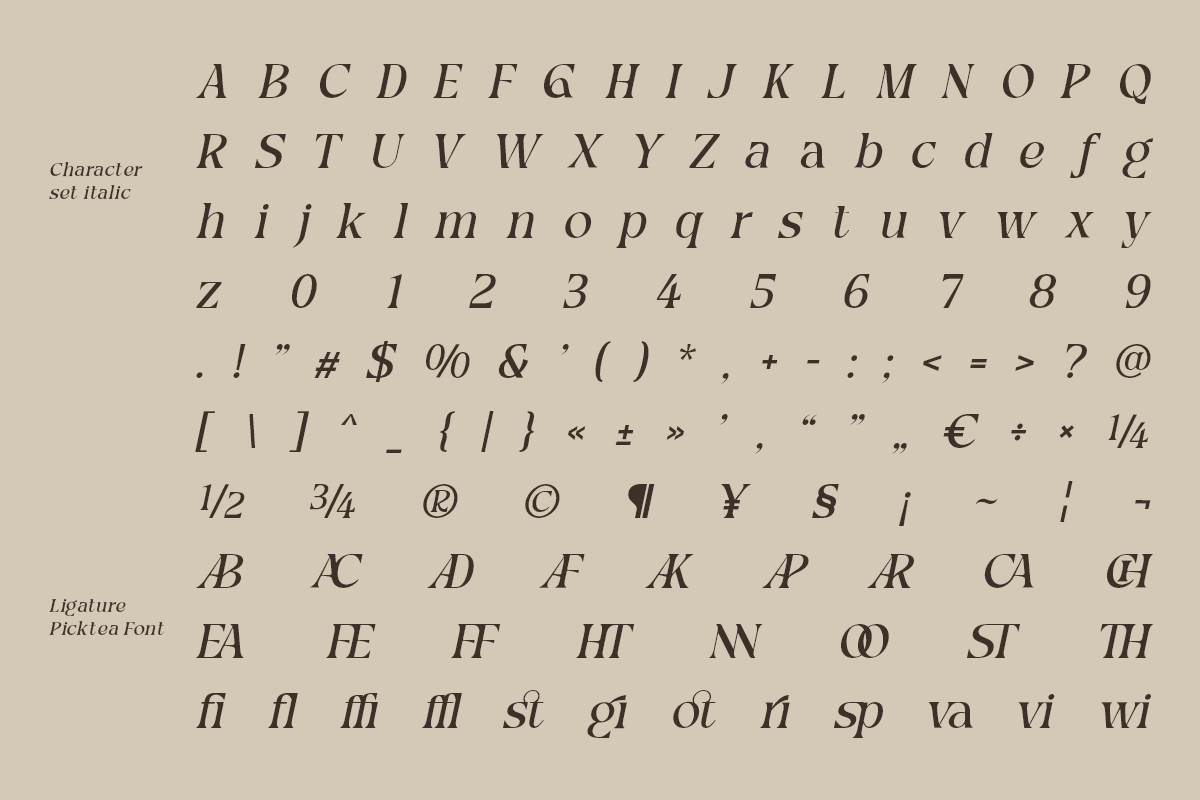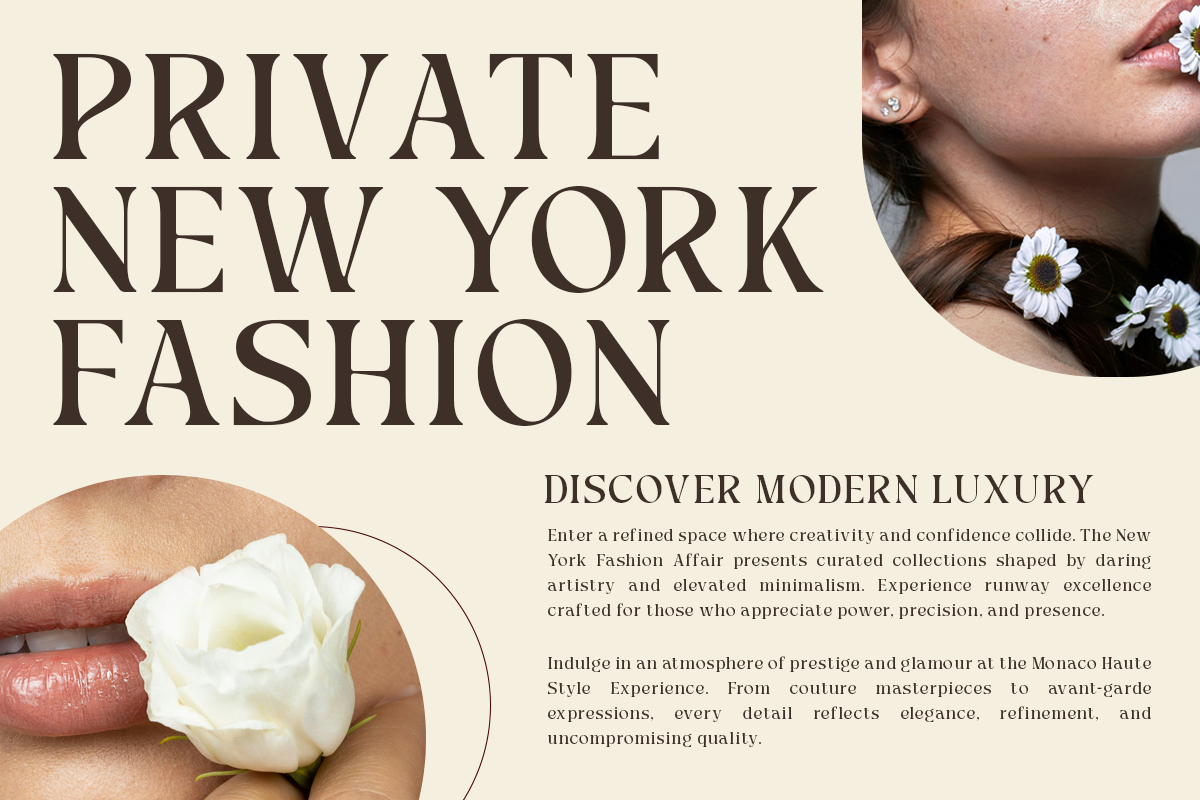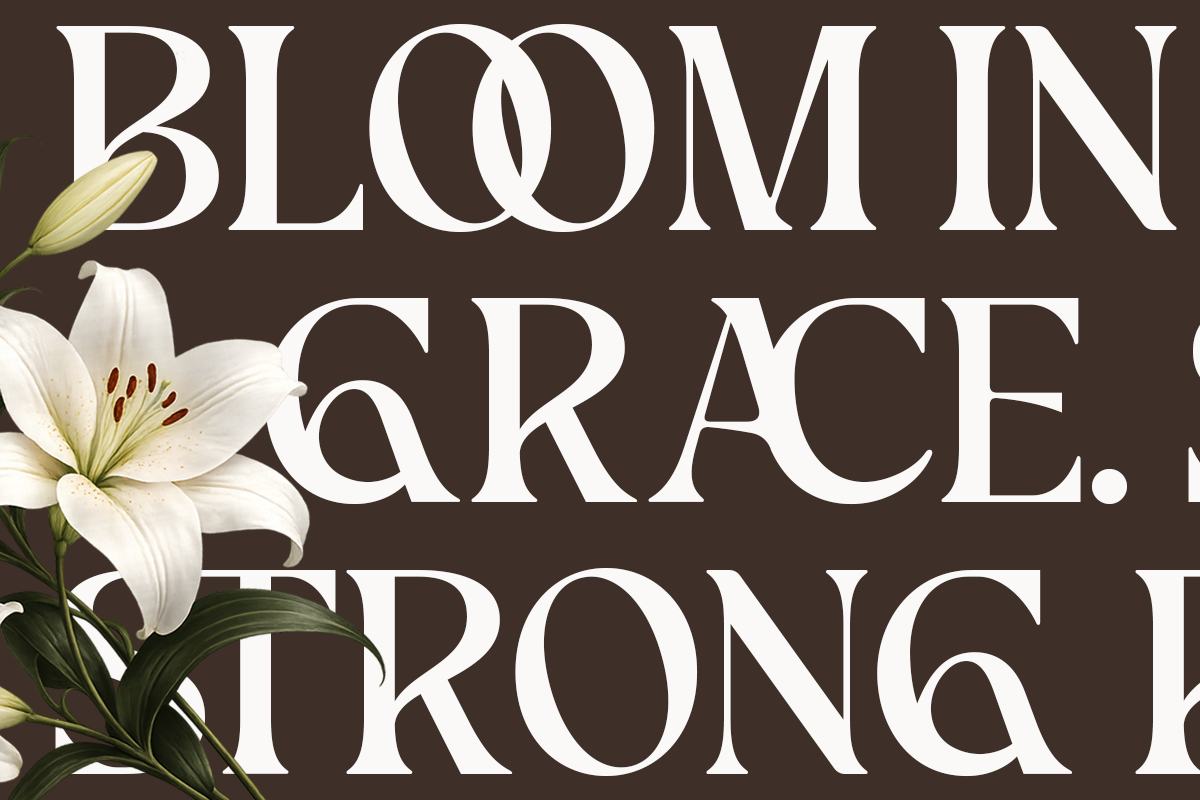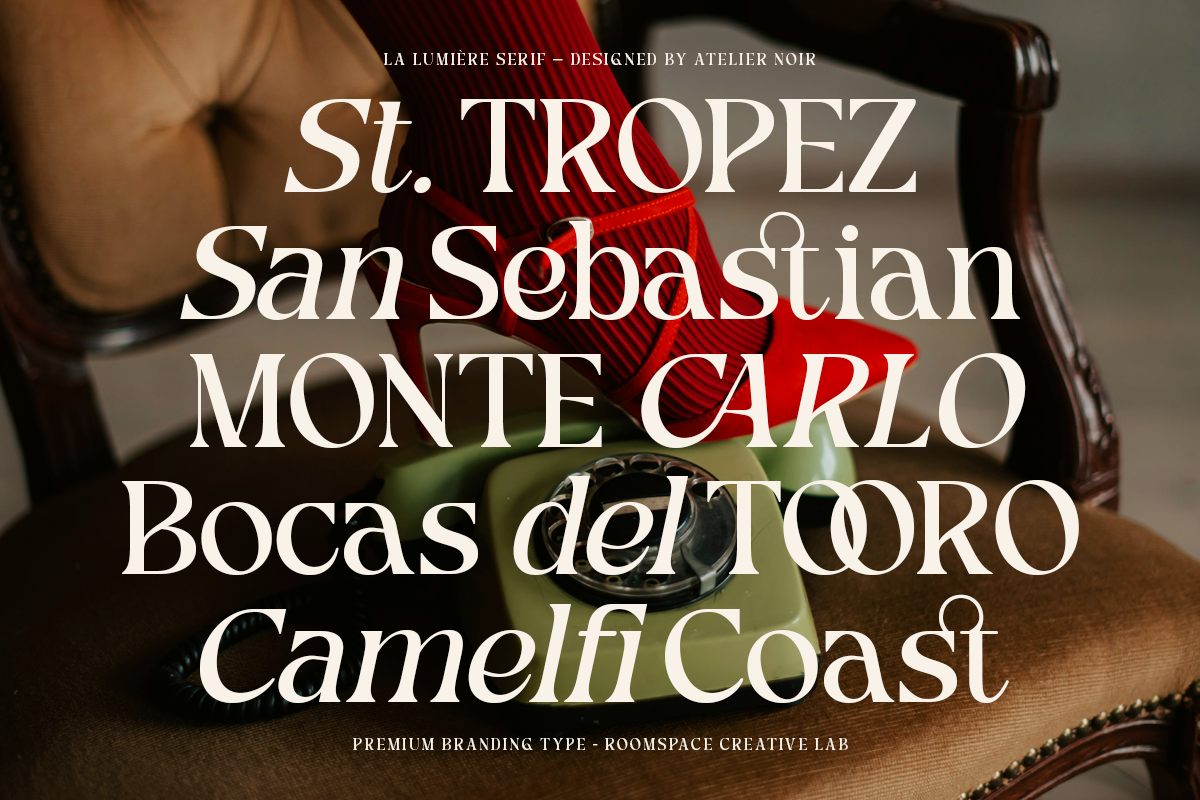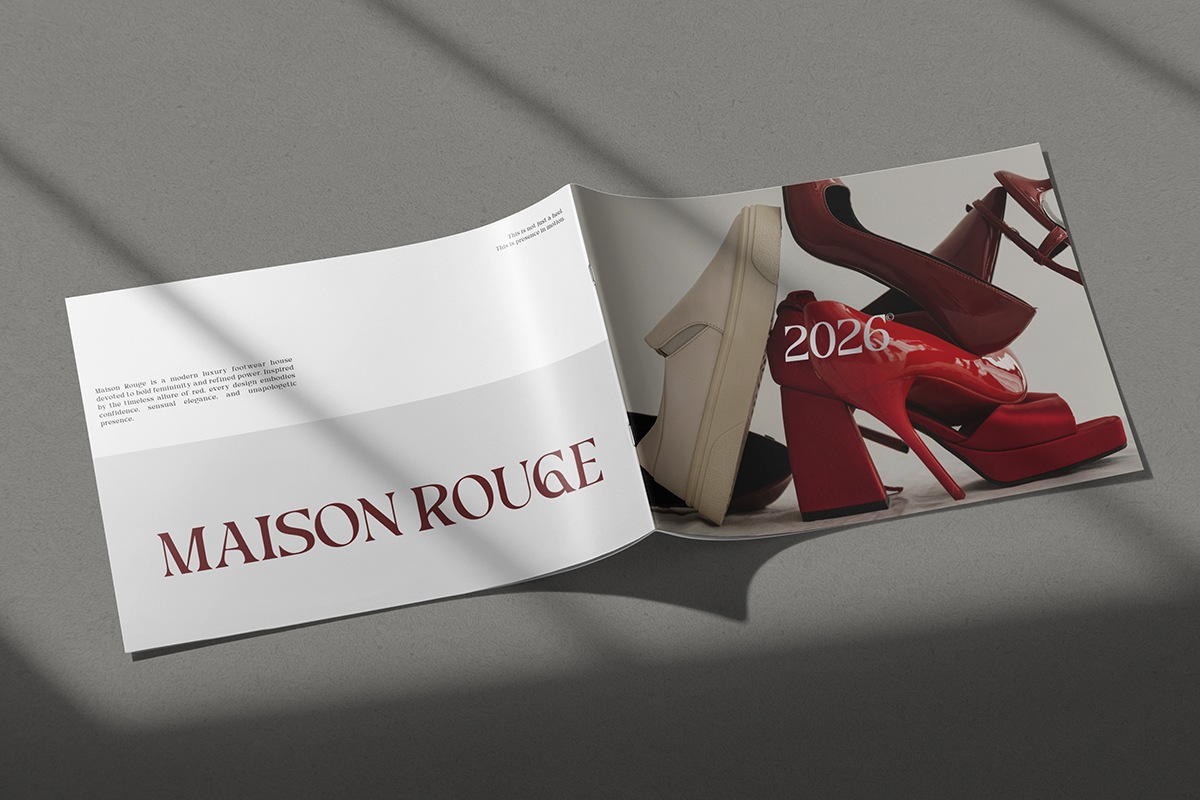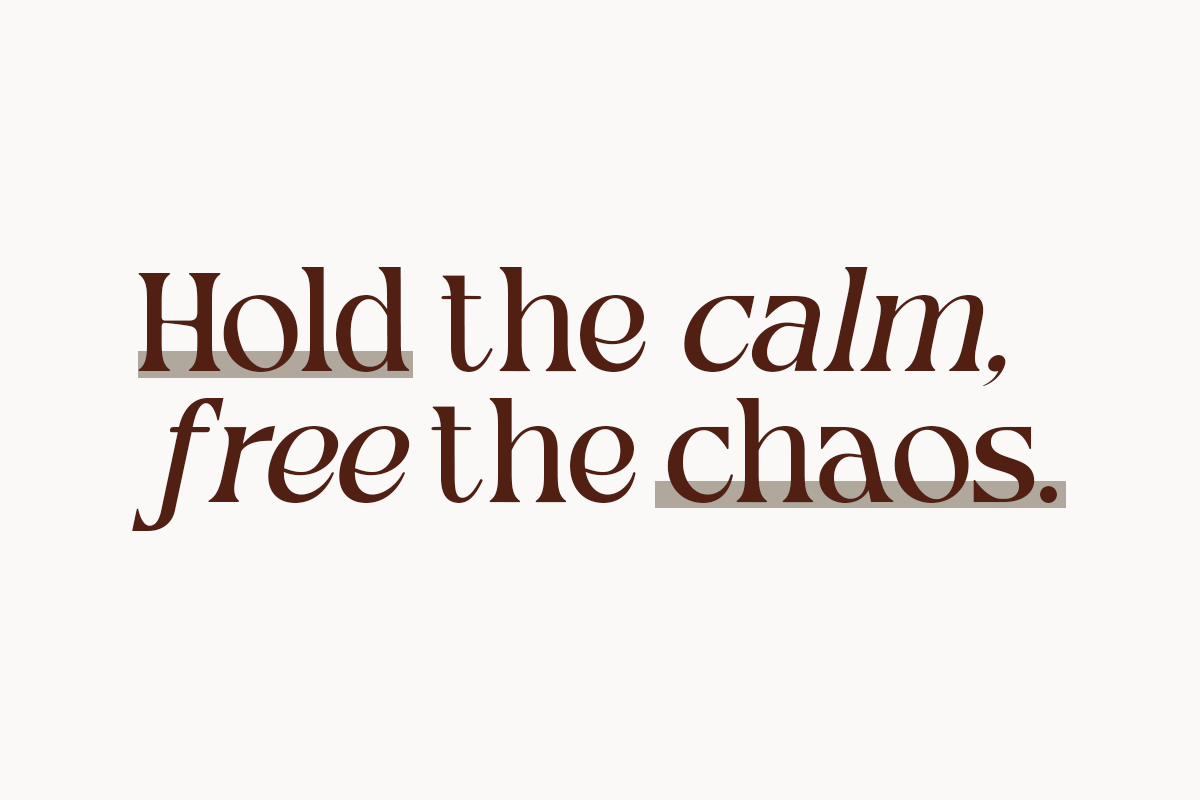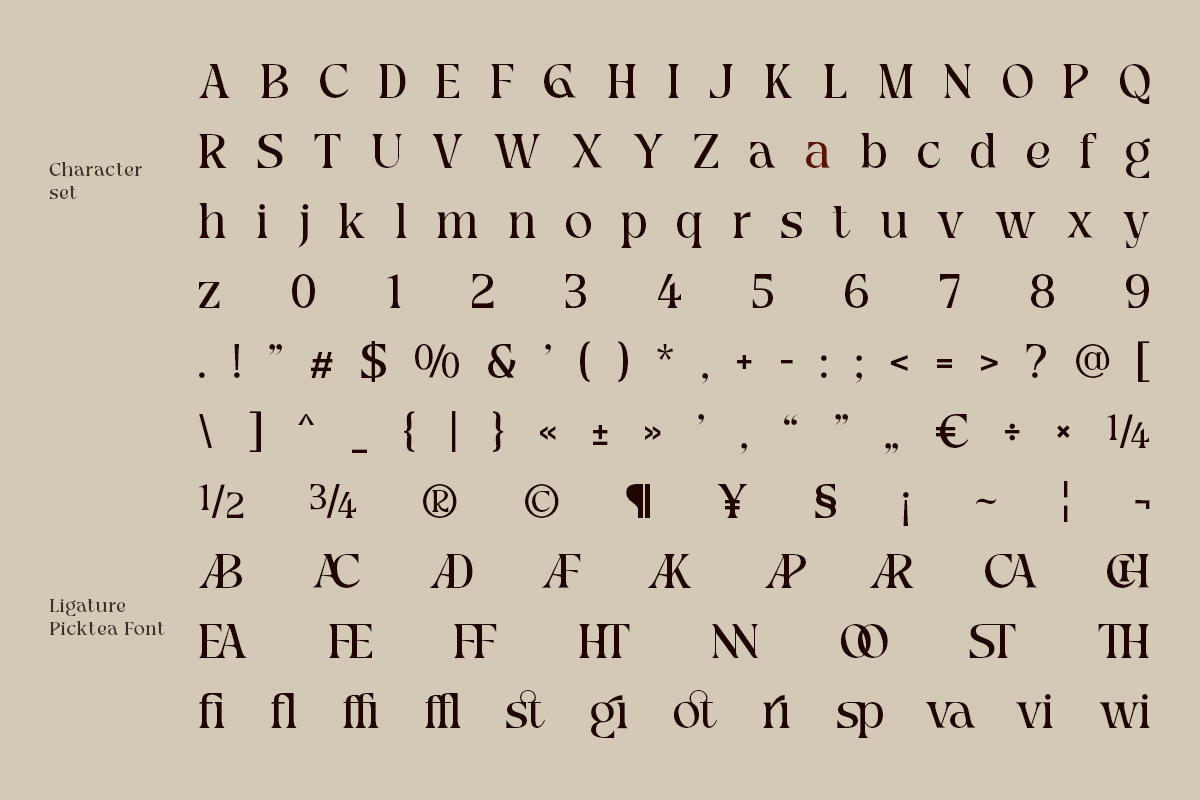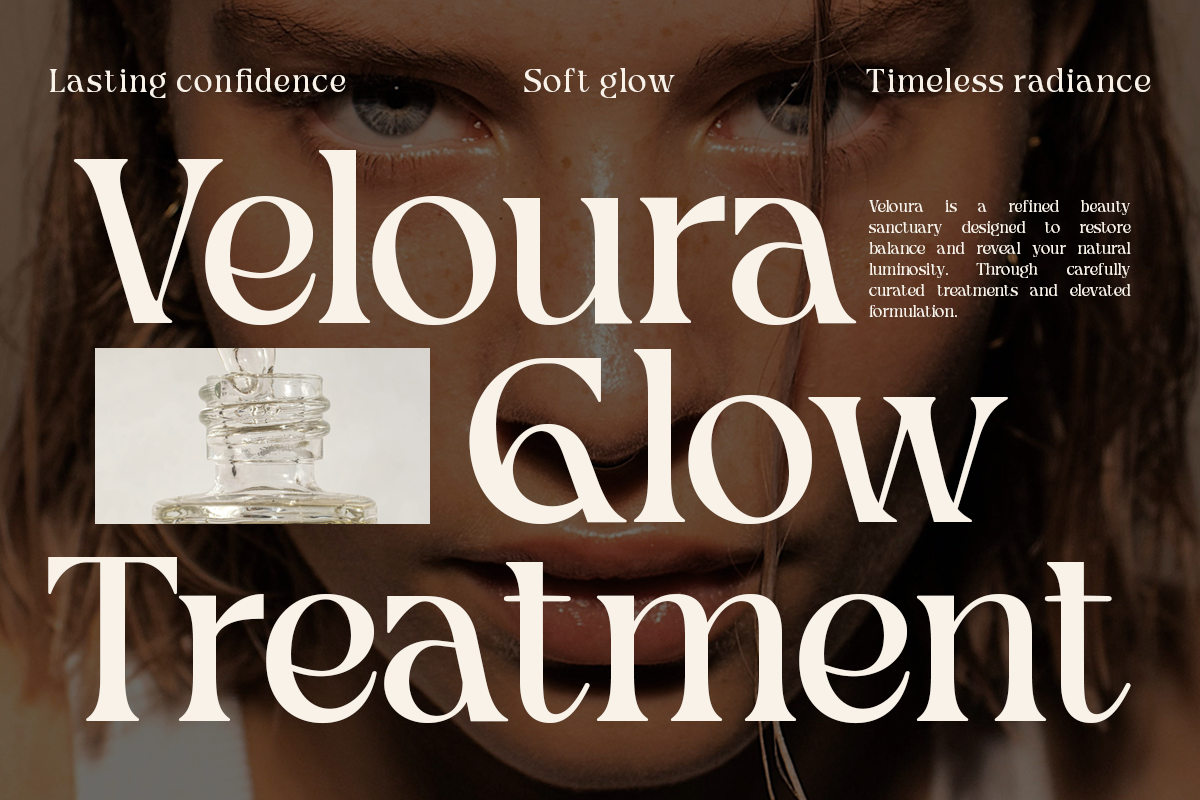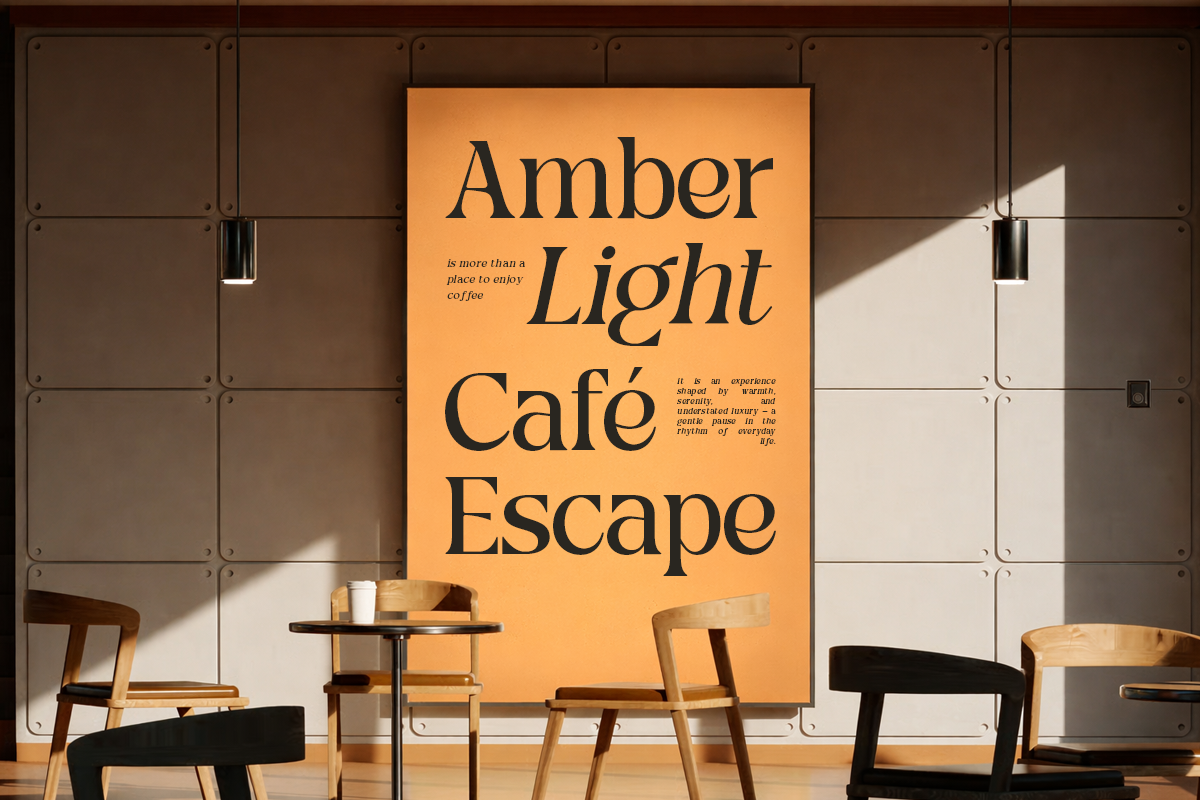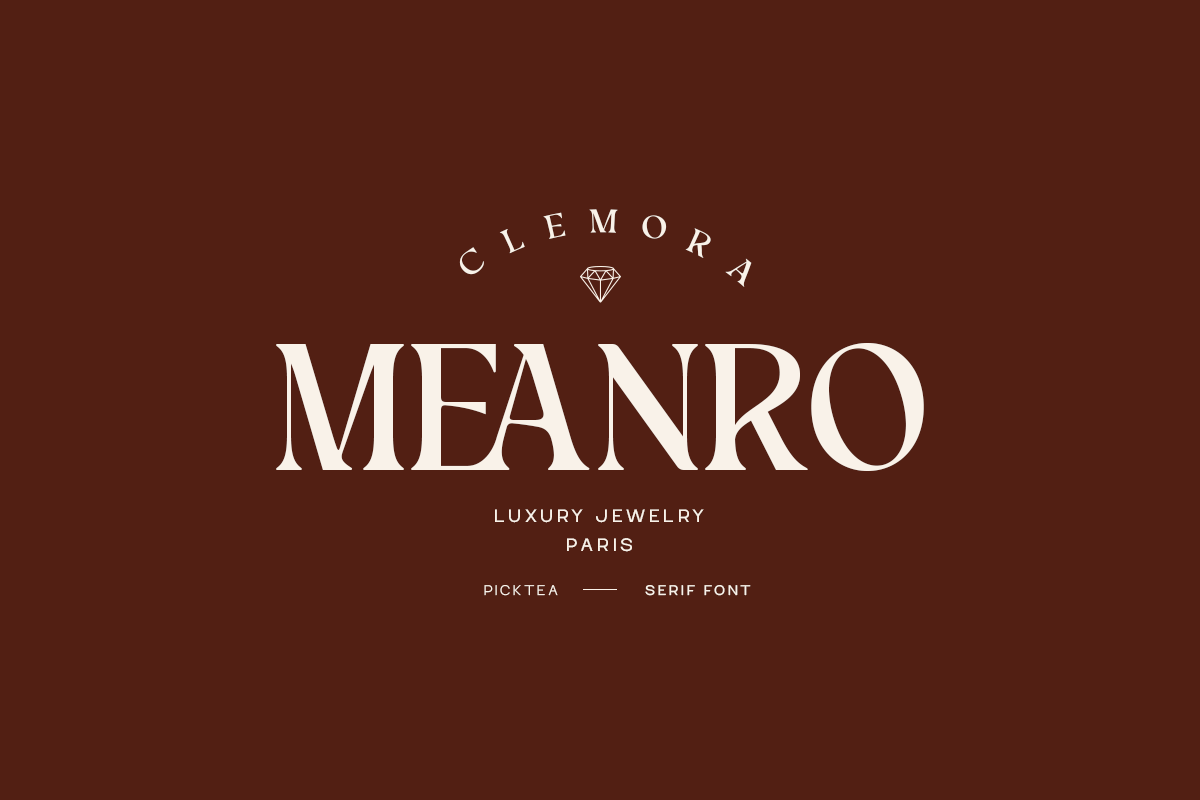
Picktea – Elegant Luxury Serif
Picktea is a refined modern serif display font that blends graceful curves with timeless sophistication. Inspired by editorial typography and luxury brand aesthetics, Picktea brings elegance and quiet confidence to every composition. Its delicate contrast and sculpted forms create a harmonious rhythm that feels both modern and classic.
Perfect for fashion branding, beauty packaging, magazine layouts, and premium visual identities, Picktea helps elevate your designs with a sophisticated typographic presence.
- Elegant modern serif display
- Clean spacing & kerning
Perfect For : Brand identities, Fashion campaigns, Beauty and skincare brands, Luxury packaging, Magazine covers, Social media graphics, and Website headers